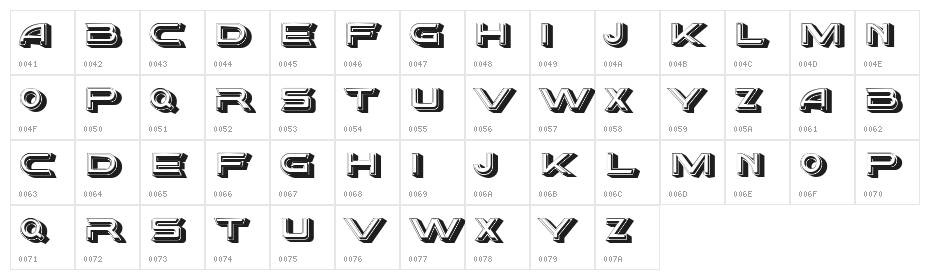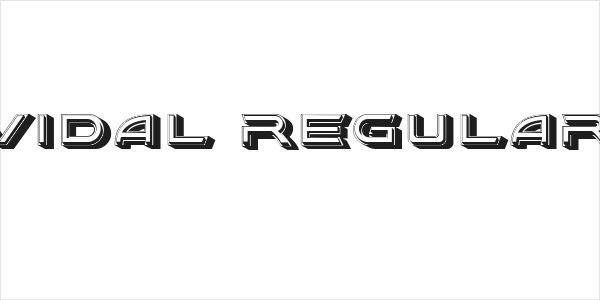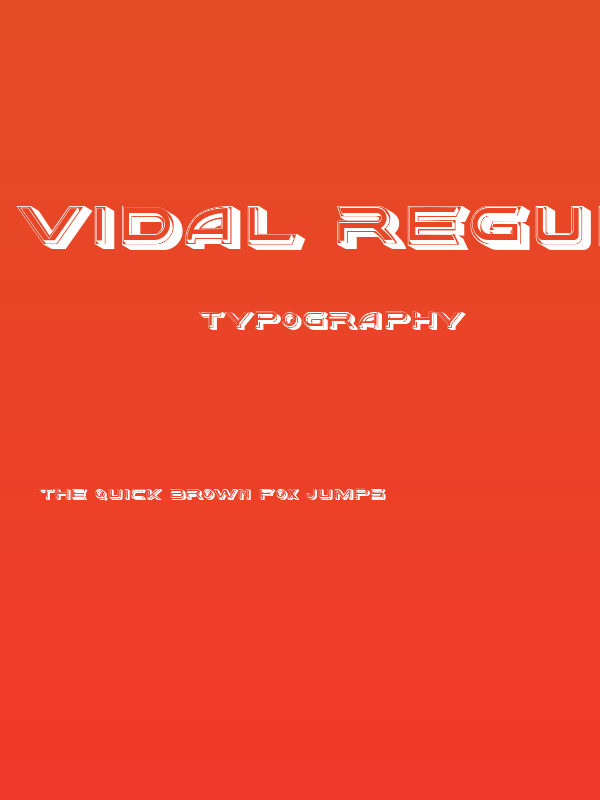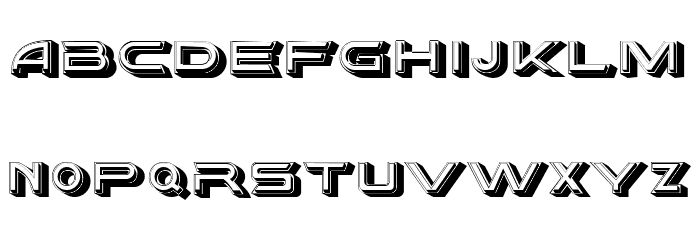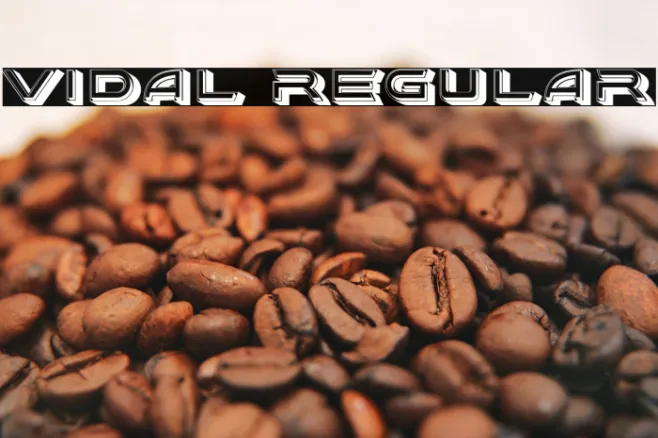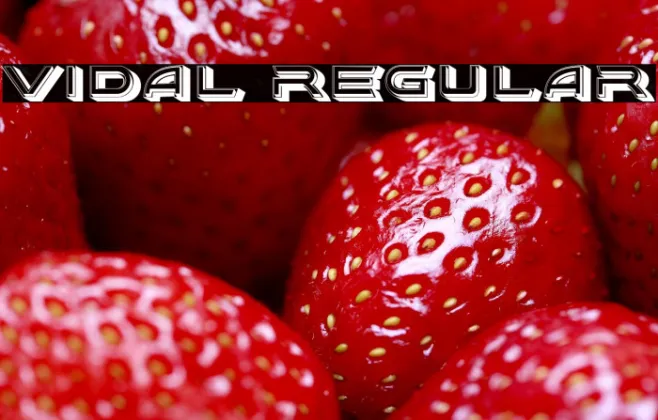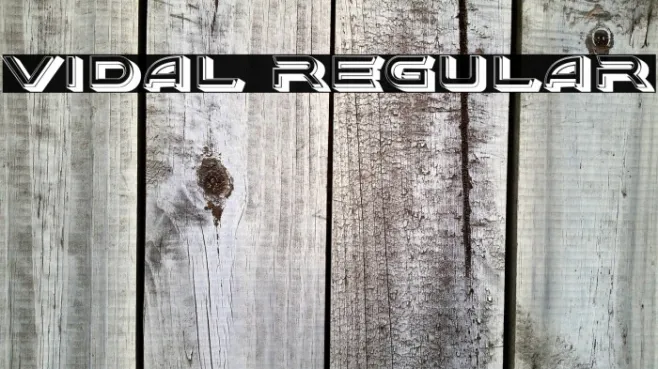
Vidal Regular Font
Vidal Regular Description
This font features a bold, three-dimensional design with a strong, geometric structure. The characters are uppercase only, showcasing a modern and futuristic style with a shadow effect that gives depth and a sense of movement. The strokes are thick and consistent, providing a uniform appearance across all letters. The font's design is highly decorative, making it suitable for attention-grabbing headlines or logos. Its unique style is characterized by sharp angles and clean lines, creating a dynamic and impactful visual presence.
| Proposed Projects | Ideal for use in branding, logos, posters, and any project requiring a strong visual impact. |